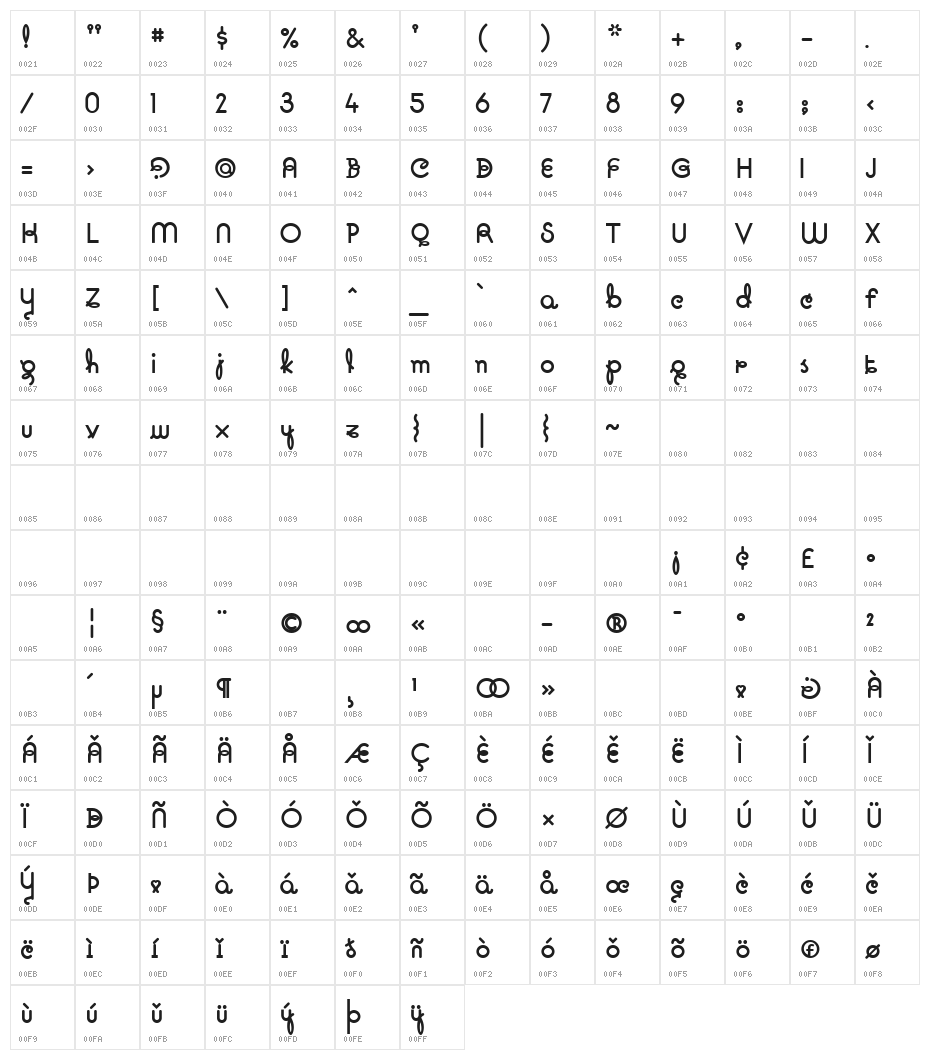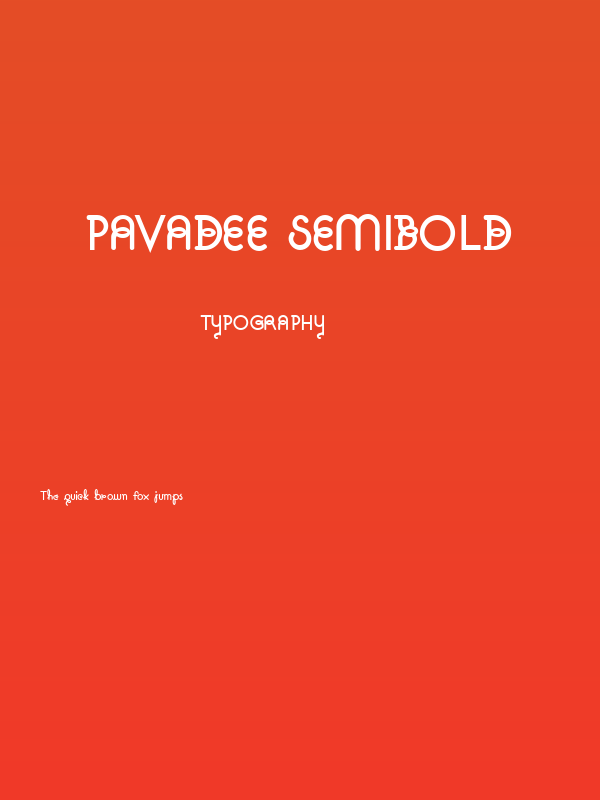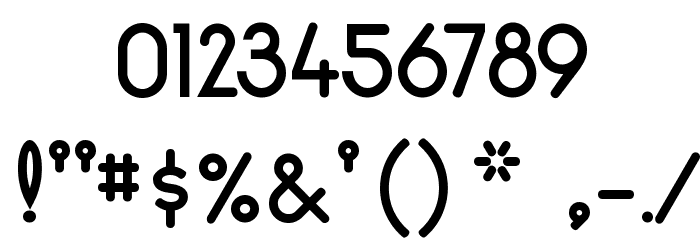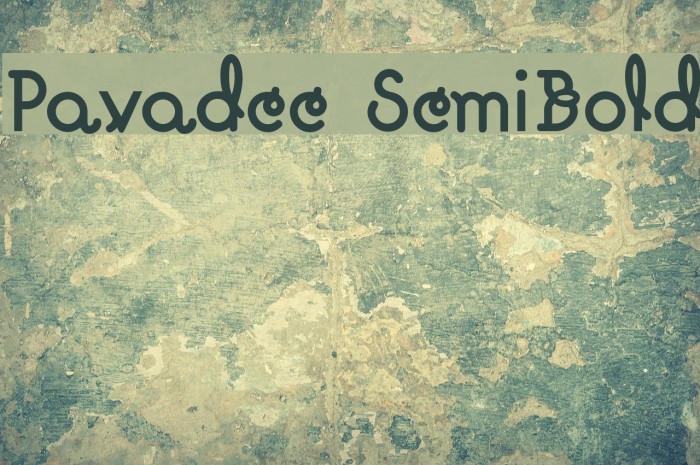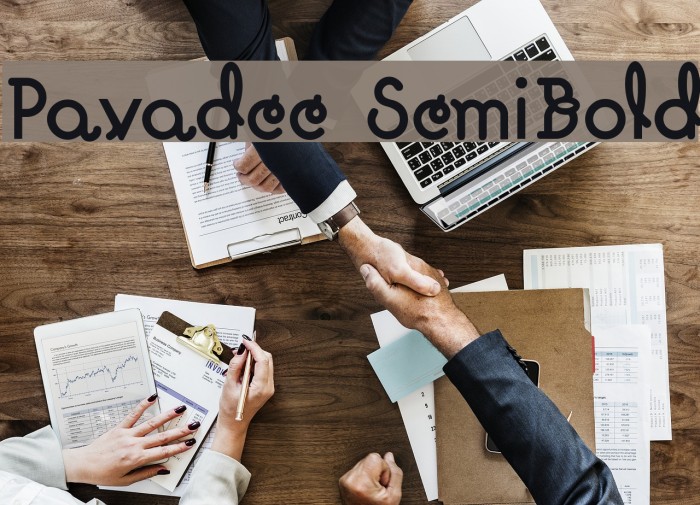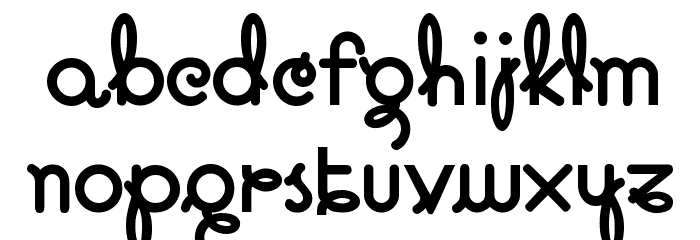
Pavadee SemiBold Font
Pavadee SemiBold Description
This font features a playful and unique design with rounded, flowing lines that create a sense of movement and whimsy. The characters have a consistent stroke width, contributing to a cohesive and harmonious appearance. The uppercase letters are bold and prominent, while the lowercase letters maintain a similar style with slightly more intricate curves and loops. The numerals are clear and legible, matching the overall aesthetic of the font. Special characters are creatively integrated, maintaining the playful theme. This font is ideal for projects that require a fun and engaging visual element.
| Proposed Projects | Ideal for children's books, playful branding, creative posters, and whimsical invitations. |